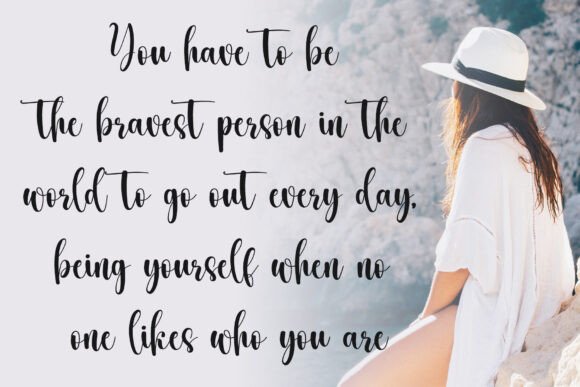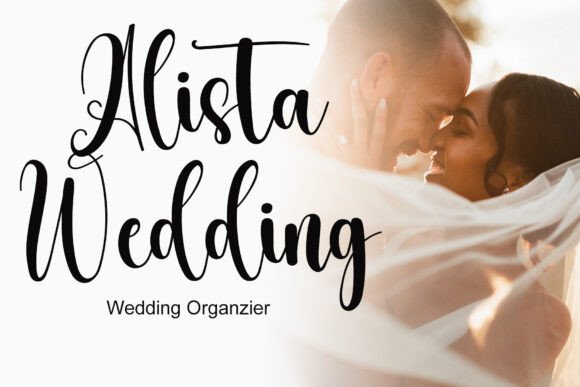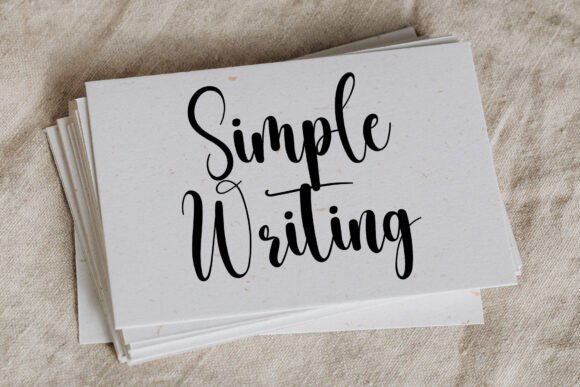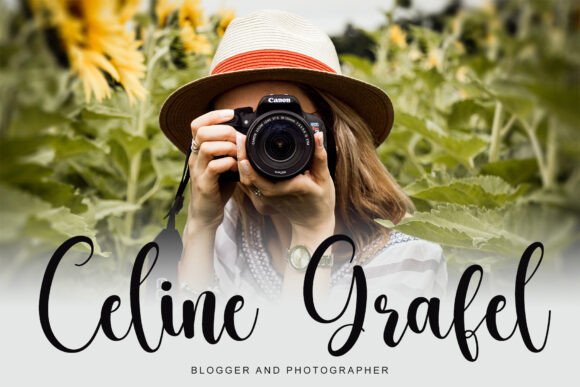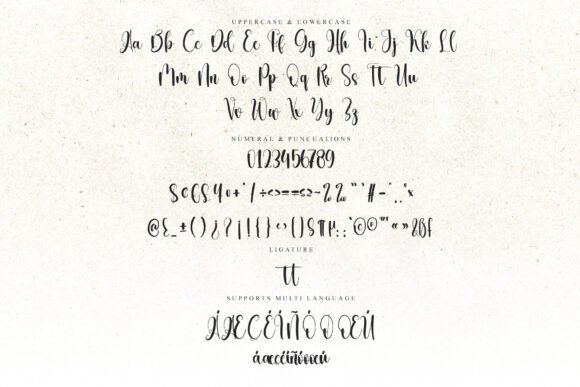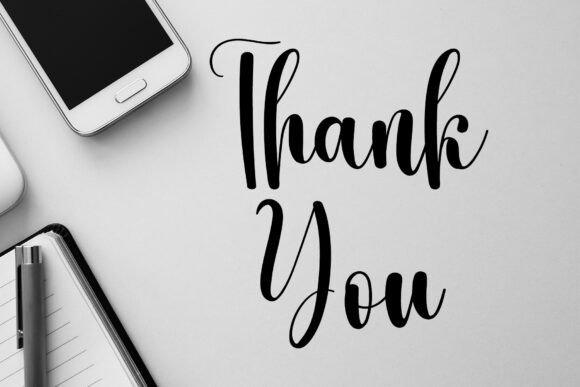
Discover the Magic of Chasing Valentines Font: Elevate Your Designs with Elegance
Are you a designer, crafter, or DIY enthusiast looking for a font that can add a touch of elegance to your projects? Look no further than Chasing Valentines Font, a beautiful handwritten script that can transform your creative ideas into stunning works of art. In this article, we’ll explore the features and benefits of Chasing Valentines Font, and show you how to make the most of this versatile and magical font.
What is Chasing Valentines Font?
Chasing Valentines Font is a carefully crafted handwritten font designed to bring a touch of sophistication and whimsy to your designs. With its flowing script and delicate lines, this font is perfect for a wide range of creative projects, from Instagram posts and social media graphics to DIY crafts and paper crafting.
Key Features of Chasing Valentines Font
- Handwritten script: Chasing Valentines Font features a beautiful, handwritten script that adds a personal touch to your designs.
- Elegant and whimsical: This font combines elegance and playfulness, making it perfect for a wide range of creative projects.
- Magical and artistic: With its flowing lines and delicate curves, Chasing Valentines Font can turn any design into a true piece of art.
- Versatile: This font is suitable for a variety of design applications, including Instagram posts, social media graphics, DIY crafts, and paper crafting.
Benefits of Using Chasing Valentines Font
So why choose Chasing Valentines Font for your design projects? Here are just a few benefits of using this amazing font:
- Adds elegance to your designs: Chasing Valentines Font can instantly elevate your designs and give them a professional finish.
- Perfect for DIY projects: This font is ideal for DIY enthusiasts and crafters who want to add a personal touch to their projects.
- Great for social media graphics: With its eye-catching script and elegant lines, Chasing Valentines Font is perfect for creating stunning social media graphics.
Inspiration and Ideas for Using Chasing Valentines Font
Need some inspiration for using Chasing Valentines Font? Here are a few ideas to get you started:
- Create stunning social media graphics: Use Chasing Valentines Font to create eye-catching social media graphics, such as Instagram posts and Facebook banners.
- Make beautiful DIY crafts: Add a personal touch to your DIY crafts, such as cards, gift tags, and scrapbook pages.
- Design elegant wedding stationery: Use Chasing Valentines Font to create beautiful wedding stationery, such as invitations, save-the-date cards, and wedding menus.
Chasing Valentines Font is a magical handwritten font that can add a touch of elegance to your designs. With its flowing script and delicate lines, this font is perfect for a wide range of creative projects, from Instagram posts and social media graphics to DIY crafts and paper crafting. Whether you’re a designer, crafter, or DIY enthusiast, Chasing Valentines Font is a great choice for anyone looking to create stunning and professional-looking designs.